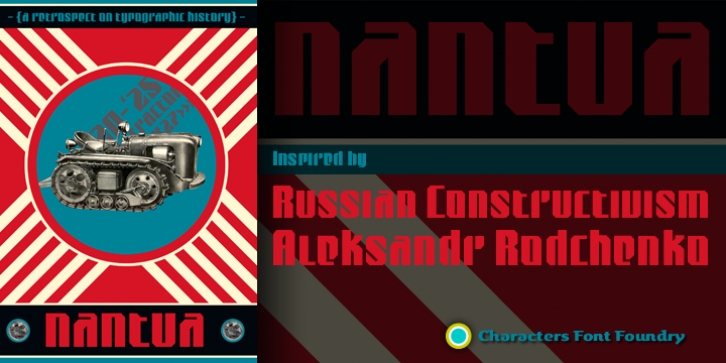
Publisher: Characters Font Foundry
Nantua is inspired by the Russian Constructivism from the early 1920s. Artists like Aleksandr Rodchenko used typography as forms.
Nantua can be used with that very same principal. It’s a very geometrical display font with hard edges. Used in big sizes it is very ‘in your face’. Used in small sizes it tends to work like a compact background pattern.
With very small inner forms, Nantua needs to be used in big sizes to be legible. It’s preferably seen on posters or flyers.